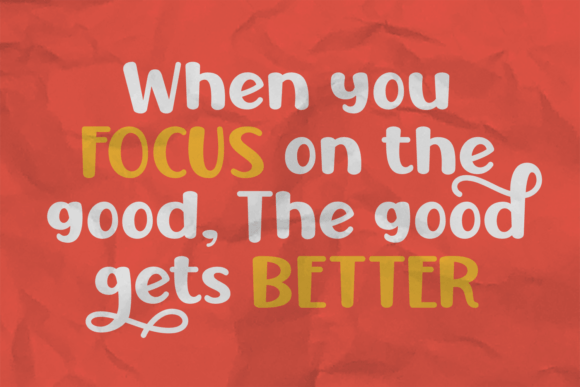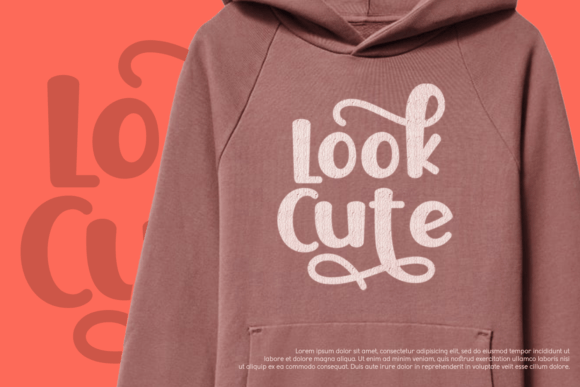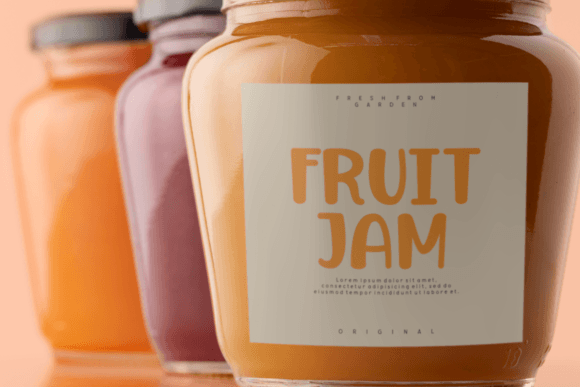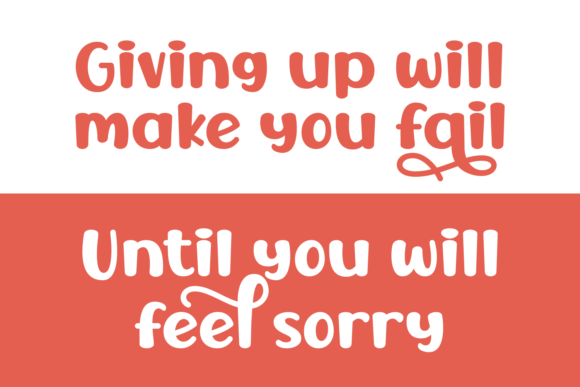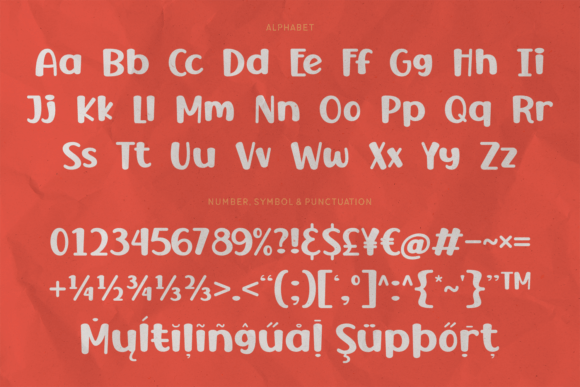
Introduction to Kenly Font
Have you ever stumbled upon the perfect font while working on a creative project, and suddenly everything falls into place? For designers, finding that elusive combination of style and functionality can be a game-changer. I still remember the moment I discovered the Kenly Font, and I knew I had to share it with the world. Its charming, chubby characters and captivating swashes make it an absolute dream to work with.
With its PUA encoded glyphs and swashes, the Kenly Font is an incredibly versatile design resource that can elevate any project. Whether you’re creating cute labels, fabric prints, or posters, this high-quality font is sure to bring a touch of personality to your work. Plus, its transparent background makes it easy to layer and manipulate, giving you complete control over your design.
Honest Review: Kenly Font
As a designer, I’m always on the lookout for high-quality design resources to elevate my creative projects. Recently, I had the chance to try out the Kenly Font, and I’m excited to share my honest review.
- ✨ Elegant and modern design aesthetic: The Kenly Font has a sleek and sophisticated feel that’s perfect for high-end branding and design projects.
Any limitations:
- ⚠️ Limited character set: The Kenly Font only comes with a limited character set, which may not be suitable for longer texts or complex designs.
- ⚠️ Not ideal for small text sizes: The font may not be legible at very small text sizes, which could be a limitation in certain design applications.
Overall impression: The Kenly Font is a solid addition to any designer’s toolkit, offering a high-quality design aesthetic and a convenient free download. While it may have some limitations, it’s still a great resource for creative projects where a modern and elegant font is needed.
Tips for Getting the Most Out of Kenly Font
Experiment with different font sizes, colors, and combinations to achieve the desired effect. You can also use Kenly Font in conjunction with other design elements to create a cohesive look.
Kenly Font is suitable for a variety of projects, including:
Branding and logos
Infographics and data visualizations
Print and digital marketing materials
Web design and development